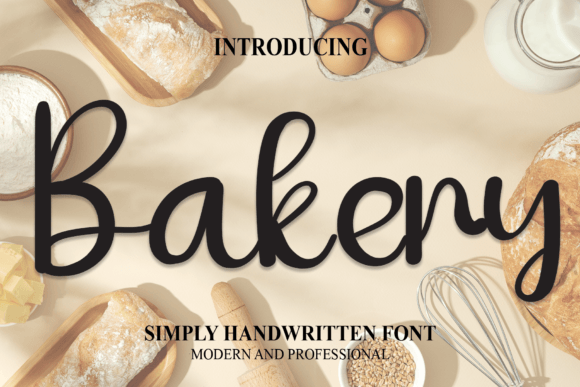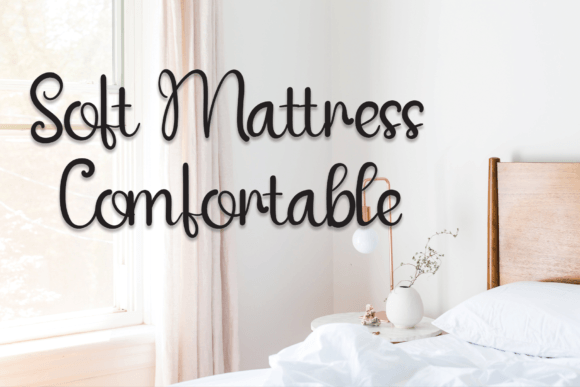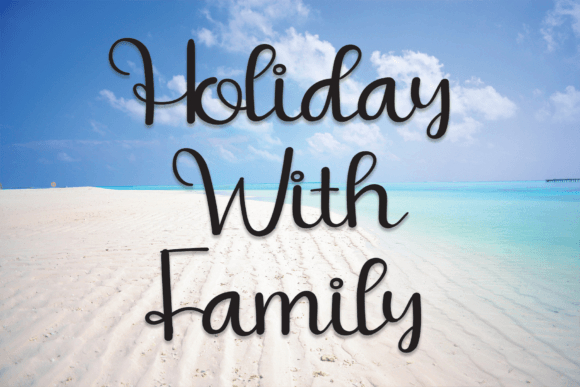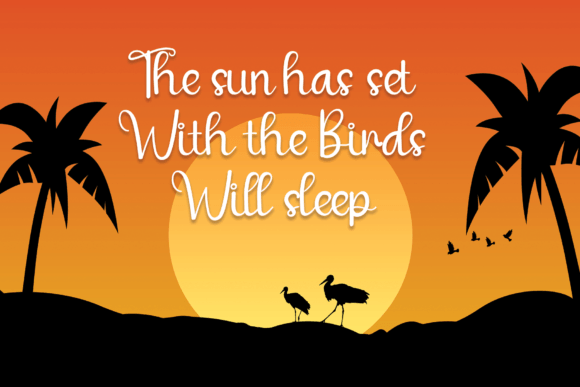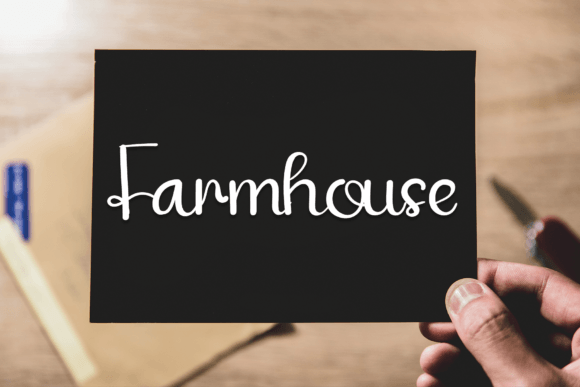
Bakery Font
The Bakery Font Download is a fun and friendly handwritten typeface designed to bring charm and warmth to creative projects. With smooth handwritten strokes and a joyful rhythm, it works beautifully for both personal and professional designs. Whether you are crafting greeting cards, posters, or digital layouts, Bakery adds personality and playful elegance.
A Playful Script with Creative Energy
The Bakery script font combines casual handwritten curves with modern versatility. As a result, it feels approachable, stylish, and adaptable. Furthermore, it transitions easily between small stationery and large branding projects, which makes it a flexible choice for designers.
Handwritten fonts always enhance the emotional value of stationery. The Bakery Font is perfect for wedding invitations, thank you cards, birthday greetings, and seasonal notes. Because of its cheerful handwritten strokes, every card feels personal and unique. In addition, it ensures your designs leave a lasting impression.
Branding and Logo Design with Bakery Font
Typography defines the voice of a brand. The Bakery handwritten font is excellent for boutique logos, product packaging, and promotional campaigns. Its friendly handwritten flow gives businesses a professional yet inviting image. Therefore, it is especially effective for fashion, lifestyle, and creative industries.
Posters, Titles, and Editorial Displays
The Bakery Font Download also shines in posters, magazines, book covers, and banners. It stays legible at all sizes while adding handwritten charm. Consequently, it is a dependable option for designers who want balance between creativity and readability.
In today’s online world, fonts must be versatile and visually appealing. The Bakery typeface integrates smoothly into Instagram graphics, YouTube thumbnails, Pinterest posts, and blogs. Because of its playful handwritten energy, it makes digital content look engaging and stylish.
Why Designers Choose Bakery Typeface
Designers appreciate fonts that combine charm with usability. The Bakery handwritten script keeps its fun personality while remaining easy to read. This balance makes it suitable for professionals and hobbyists alike. Moreover, its timeless look ensures it will stay relevant across future projects.